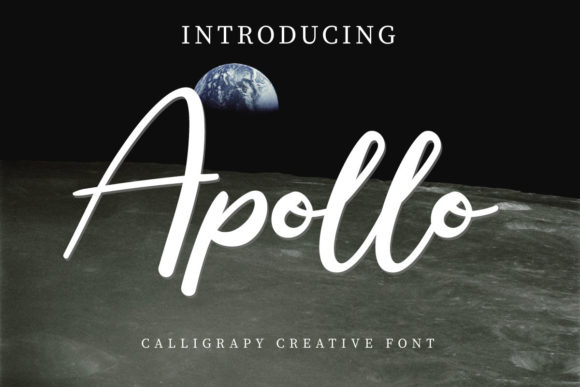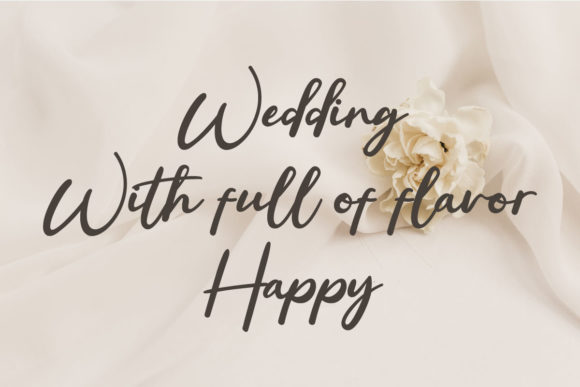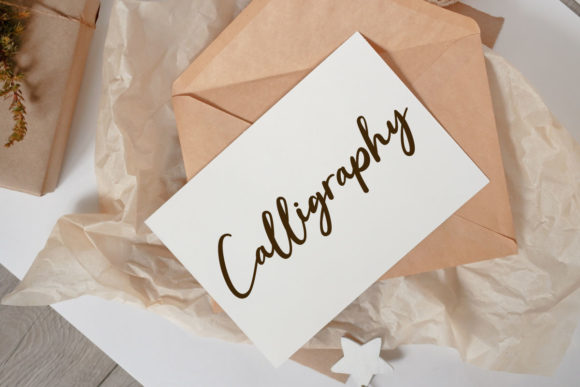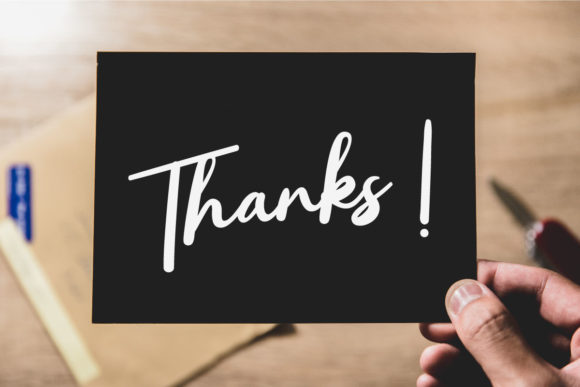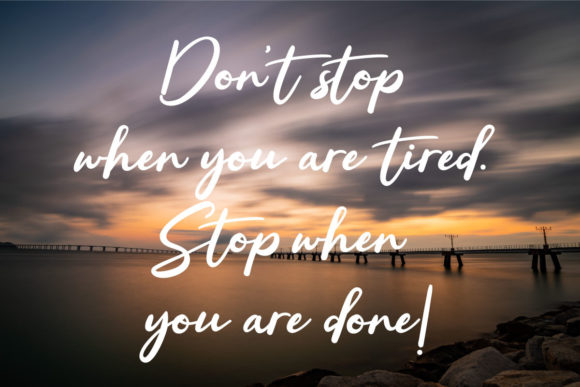
Apollo Font
About Apollo Font
“Apollo” is a beautiful and flowing handwritten font designed to add a touch of elegance to a variety of creative projects. With its unique and graceful style, this font is versatile and well-suited for a range of applications, making it an excellent choice for projects that demand impressive typography.
The flowing and handwritten nature of “Apollo” imparts a sense of fluidity and sophistication to your text, making it ideal for wall displays, wedding invitations, social media posts, logos, advertisements, product packaging, product designs, labels, photography, watermarks, invitations, stationery, and any project where you want to showcase impressive typography.
Whether you’re working on a wedding invitation that requires a romantic and graceful touch or creating a social media post that demands an eye-catching font, “Apollo” is crafted to meet these design needs. Its versatility allows it to adapt seamlessly to various contexts, enhancing the visual appeal of your projects.
The beauty of “Apollo” shines in its ability to convey a sense of elegance and style. It’s suitable for both print and digital media, making it a versatile choice for designers working on a diverse range of projects. The font’s flowing characters and impressive typography make it an excellent tool for creating visually stunning and memorable designs.
In summary, “Apollo” is more than just a font; it’s a beautiful and flowing handwritten typeface that elevates the typography in your designs. Whether you’re working on wedding invitations, social media posts, advertisements, or any other creative project, “Apollo” adds a touch of sophistication and elegance. Consider incorporating “Apollo” into your next design, and let its impressive typography enhance the visual impact of your work.